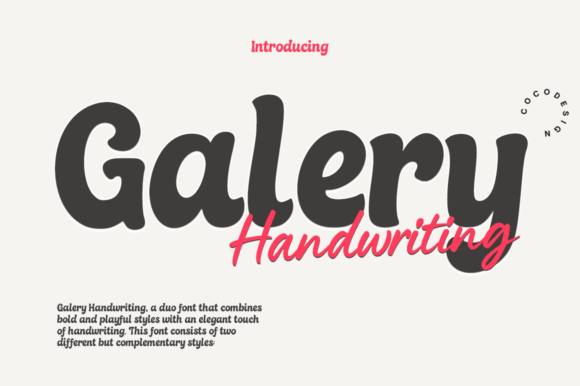
Galery Handwriting Font: Elevate Your Design with a Versatile Font Duo
In the realm of typography, a well-crafted font can make all the difference in elevating your design from ordinary to extraordinary. Introducing Galery Handwriting, a dynamic font duo that seamlessly blends bold and playful elements with an elegant, handwritten touch. This versatile pair embodies two contrasting styles that beautifully complement each other, making it an ideal choice for creative projects.
Galery: The Primary Font
Galery, the primary font, boasts a robust and curvaceous style that exudes friendliness, modernity, and strength. Its bold and curvaceous lines create an aura of approachability, making it perfect for headlines, logos, and branding elements that require a stand-out yet amiable appeal. Galery’s versatility allows it to be used across various design platforms, from digital media to print materials.
- Key Features:
- Robust and curvaceous style
- Exudes friendliness, modernity, and strength
- Ideal for headlines, logos, and branding elements
Handwriting: The Secondary Font
Handwriting, the secondary font, features a soft and dynamic script reminiscent of brush-penned handwriting. This elegant font infuses a personal, feminine, and expressive touch into your design, making it perfect for creative projects that require a more intimate and emotional connection. Handwriting is ideal for designs that require a touch of warmth and personality.
- Key Features:
- Soft and dynamic script
- Reminiscent of brush-penned handwriting
- Ideal for infusing a personal, feminine, and expressive touch
Ideal Usage Examples for Galery Handwriting Font
Galery Handwriting font duo is suitable for a wide range of creative projects, including:
- Invitations: Add a personal touch to your wedding invitations, birthday party invites, or any other special occasion with the elegant Handwriting font, paired with the bold Galery font for headings.
- Small Business Logos: Create a unique and memorable logo for your small business with the Galery font, adding a touch of professionalism and friendliness.
- Product Packaging: Stand out on store shelves with eye-catching packaging designs featuring the Galery Handwriting font duo.
- Social Media Quotes: Elevate your social media presence with visually attractive quotes designed using the Galery Handwriting font duo.
- YouTube and Instagram Content: Add a touch of personality to your video titles, descriptions, and captions with the Galery Handwriting font duo.
The Benefits of Combining Galery and Handwriting Fonts
Pairing Galery and Handwriting fonts creates a visually attractive and readable contrast, striking the ultimate balance between strength and gentleness. This combination allows designers to:
- Create Visual Hierarchy: Use Galery for headings and Handwriting for body text or descriptions to create a clear visual hierarchy.
- Add Contrast: Combine the bold, curvaceous lines of Galery with the soft, dynamic script of Handwriting to add contrast and visual interest to your design.
- Evoke Emotions: The Galery Handwriting font duo allows designers to evoke emotions and create a connection with their audience through the careful selection of typography.
Tips and Tricks for Using Galery Handwriting Font
To get the most out of the Galery Handwriting font duo, follow these tips:
- Experiment with Font Sizes: Play with different font sizes to create visual hierarchy and emphasize important information.
- Mix and Match: Combine Galery and Handwriting fonts in creative ways to add contrast and visual interest to your design.
- Consider Legibility: Ensure that your chosen font sizes and combinations are legible across various devices and platforms.
In conclusion, the Galery Handwriting font duo offers a versatile and dynamic solution for designers seeking to elevate their creative projects. With its bold and curvaceous primary font, Galery, and soft and dynamic script of Handwriting, this font duo embodies the perfect balance between strength and gentleness. By incorporating Galery Handwriting into your design toolkit, you’ll be able to create visually attractive and readable designs that leave a lasting impression.